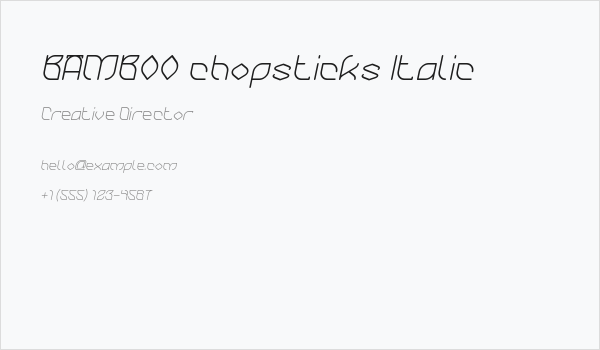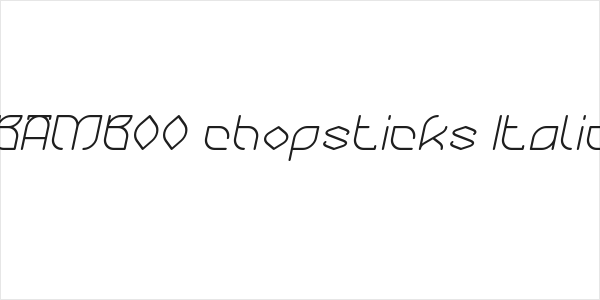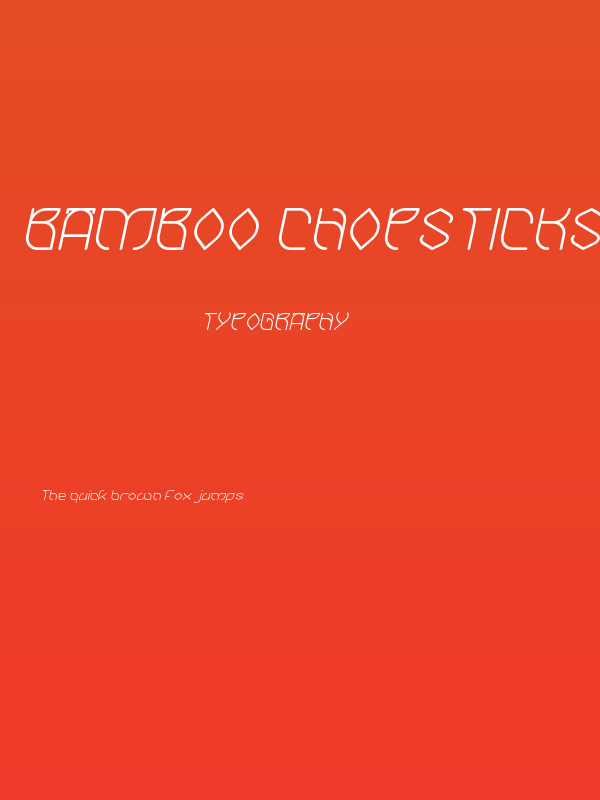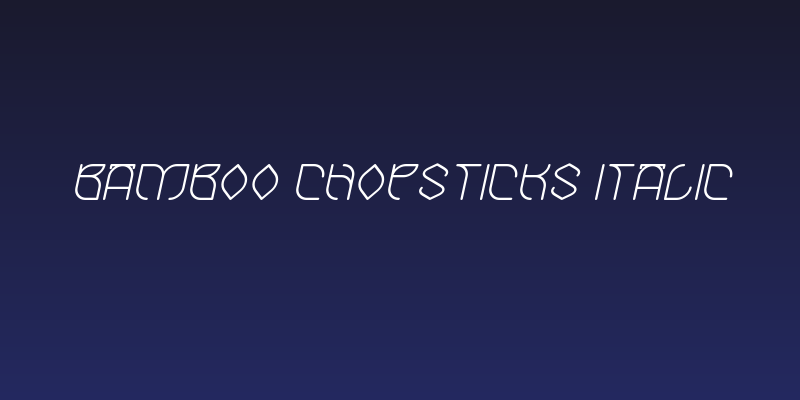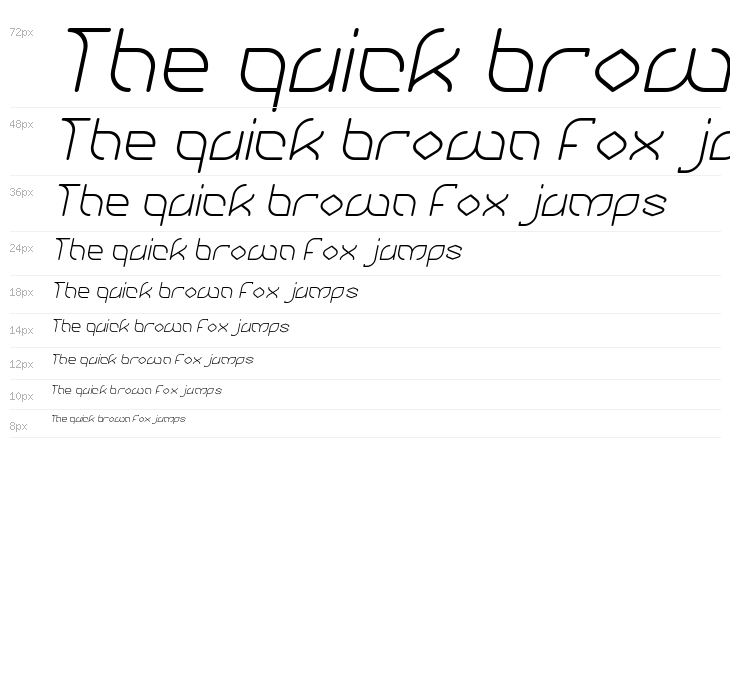
BAMBOO chopsticks Italic Font
BAMBOO chopsticks Italic Description
This font features a unique and modern design with a distinct italic slant. The characters are formed with smooth, continuous lines that mimic the flow of handwriting, yet maintain a geometric structure. The uppercase letters are bold and angular, while the lowercase letters are more rounded and fluid. Numbers and special characters follow the same stylistic approach, ensuring consistency across all elements. The font's style is reminiscent of bamboo, with its elongated and slightly curved strokes, giving it an organic yet contemporary feel.
| Use Case | Logos, Posters, Creative Branding |
| Proposed Projects | Ideal for branding projects, modern logos, and creative posters. |